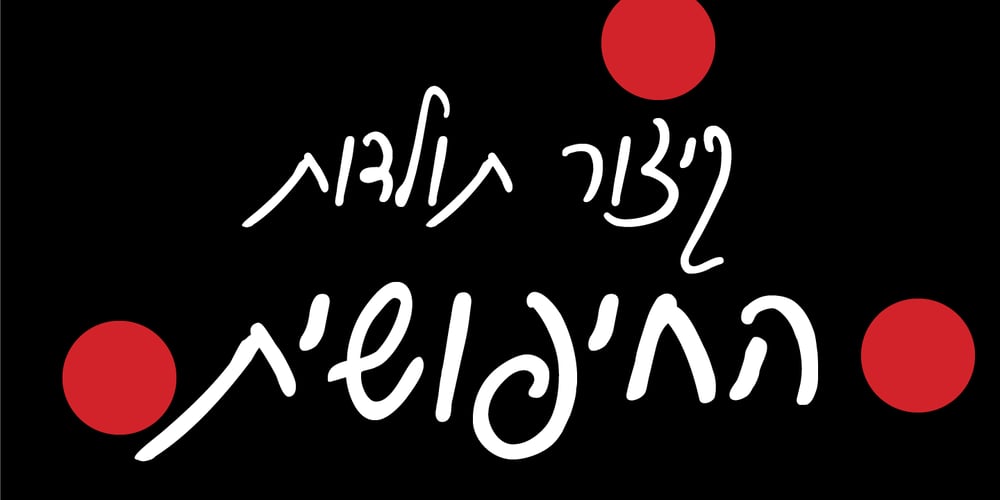
Daniale MF
Daniale MF font
Daniale MF Font Family was designed by Rafi Mozes and published by Masterfont. Daniale MF contains 1 styles and family package options. This font family is a vivid choice when you want to make your designs stand out with a remarkable clearly crafted handwriting.